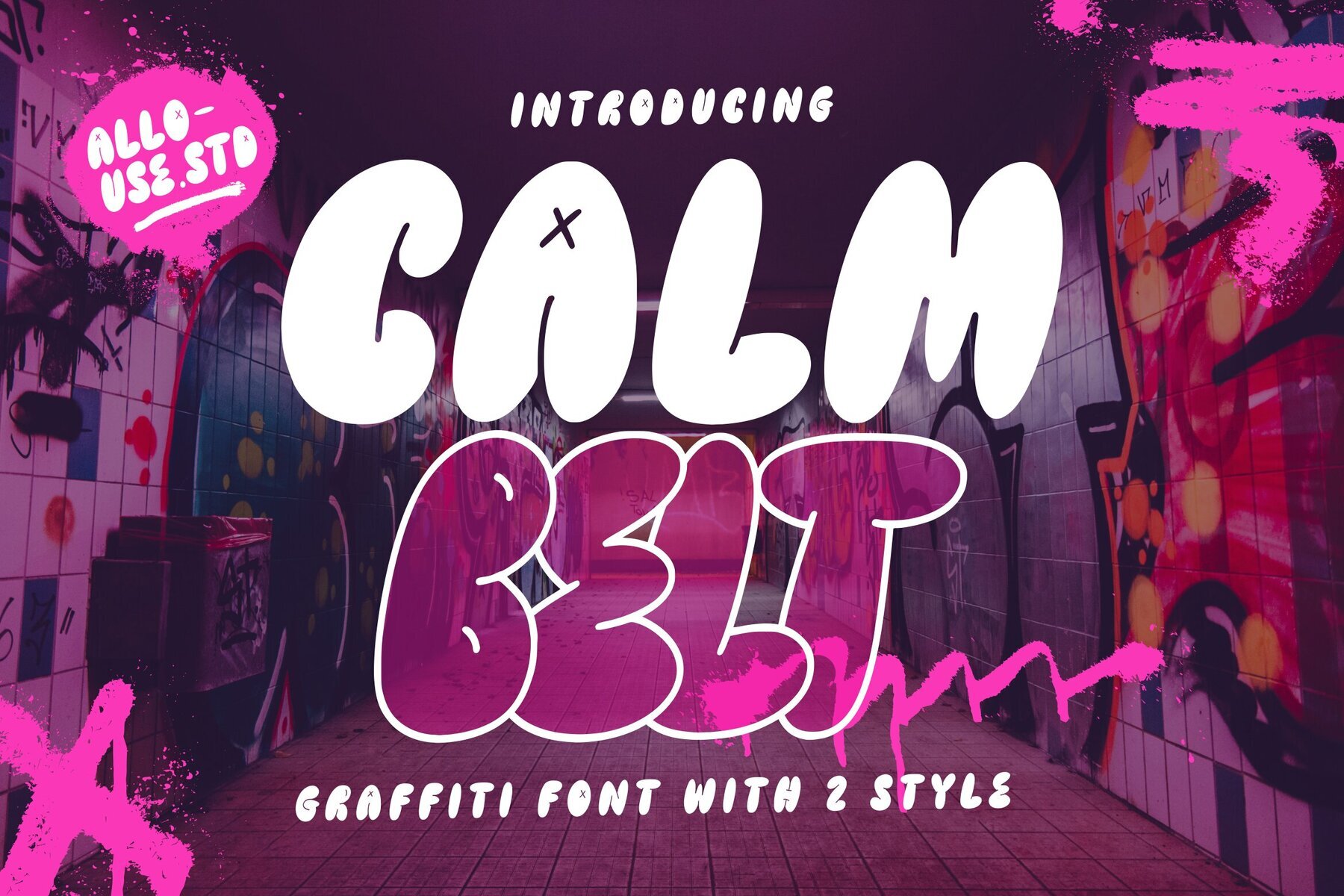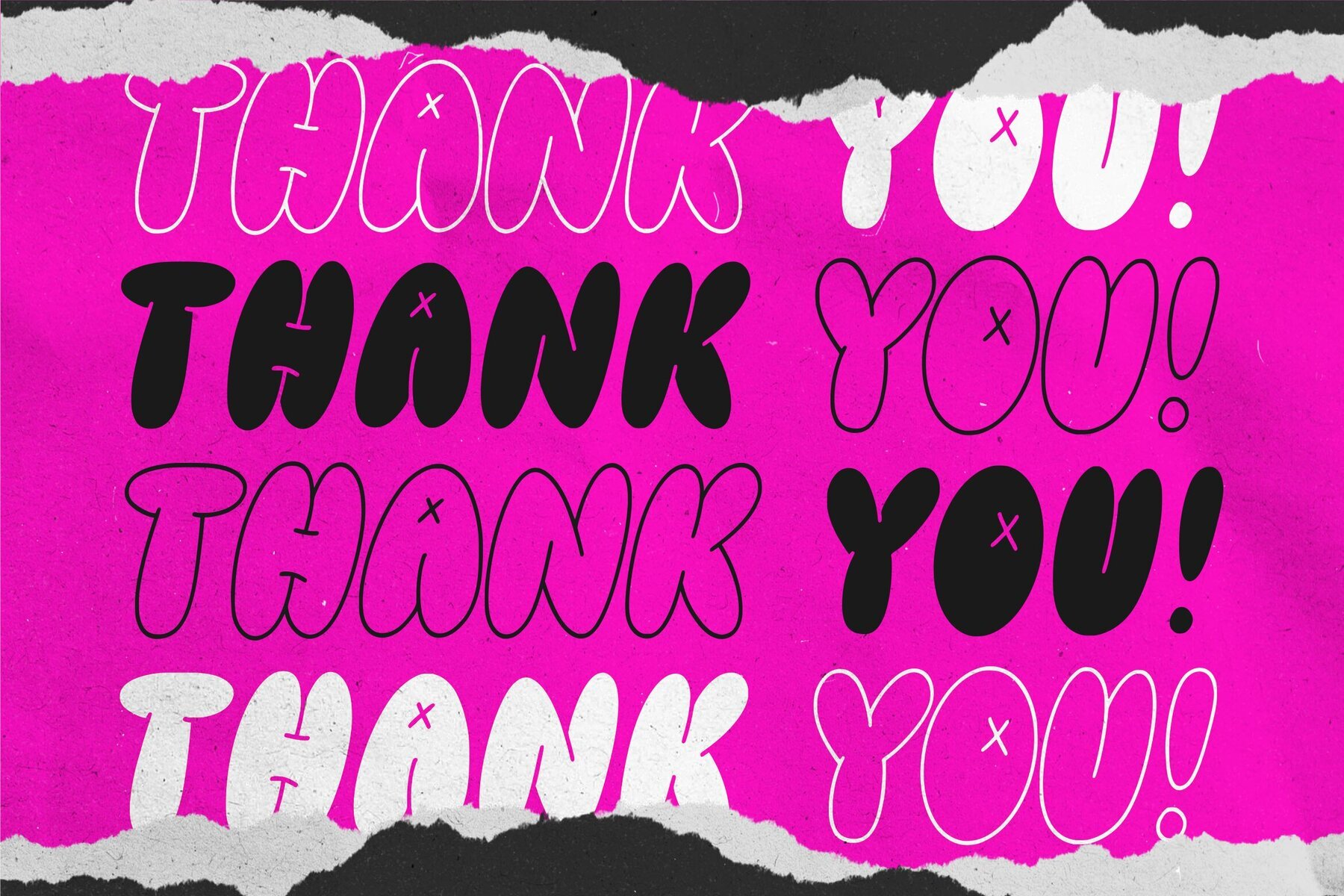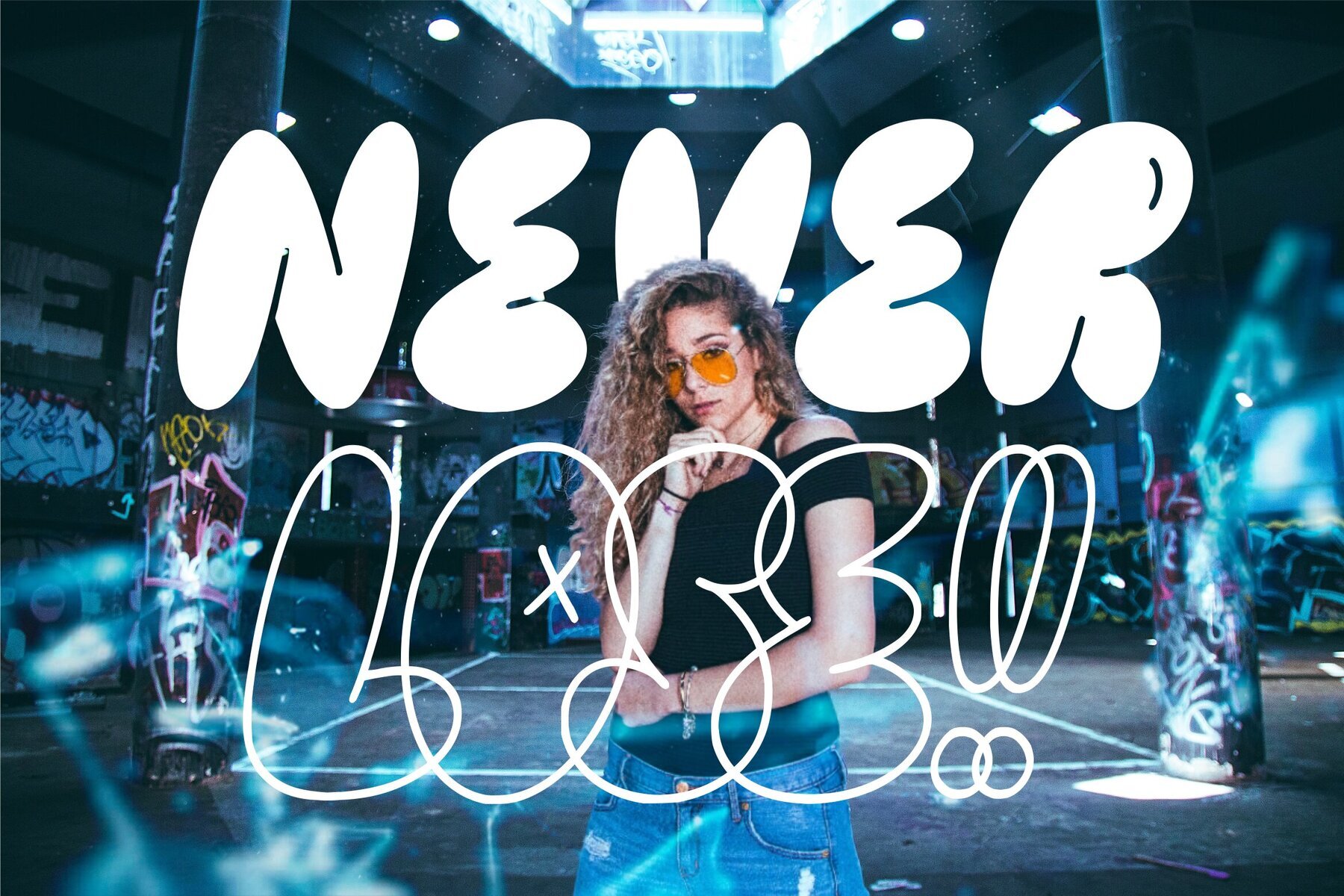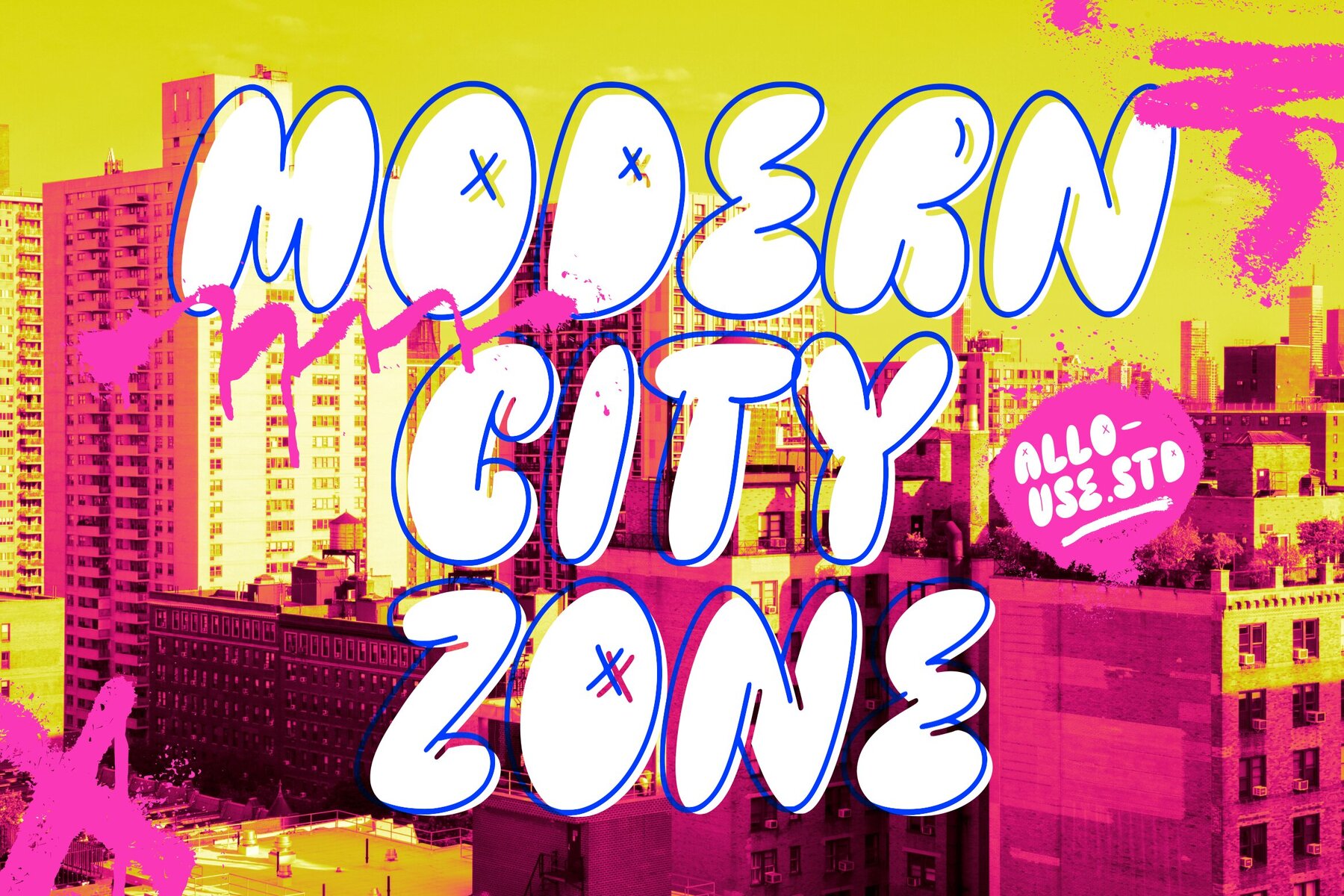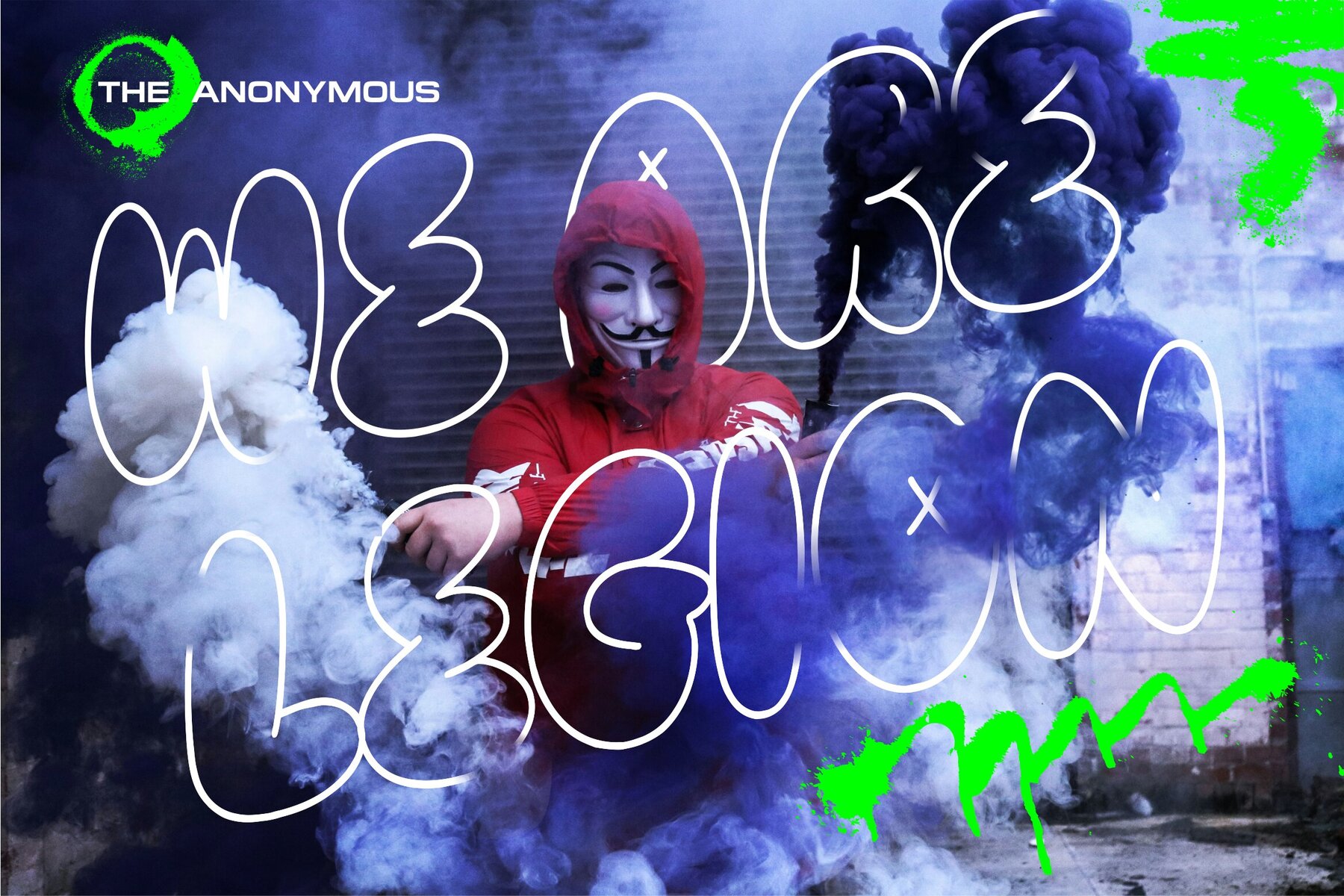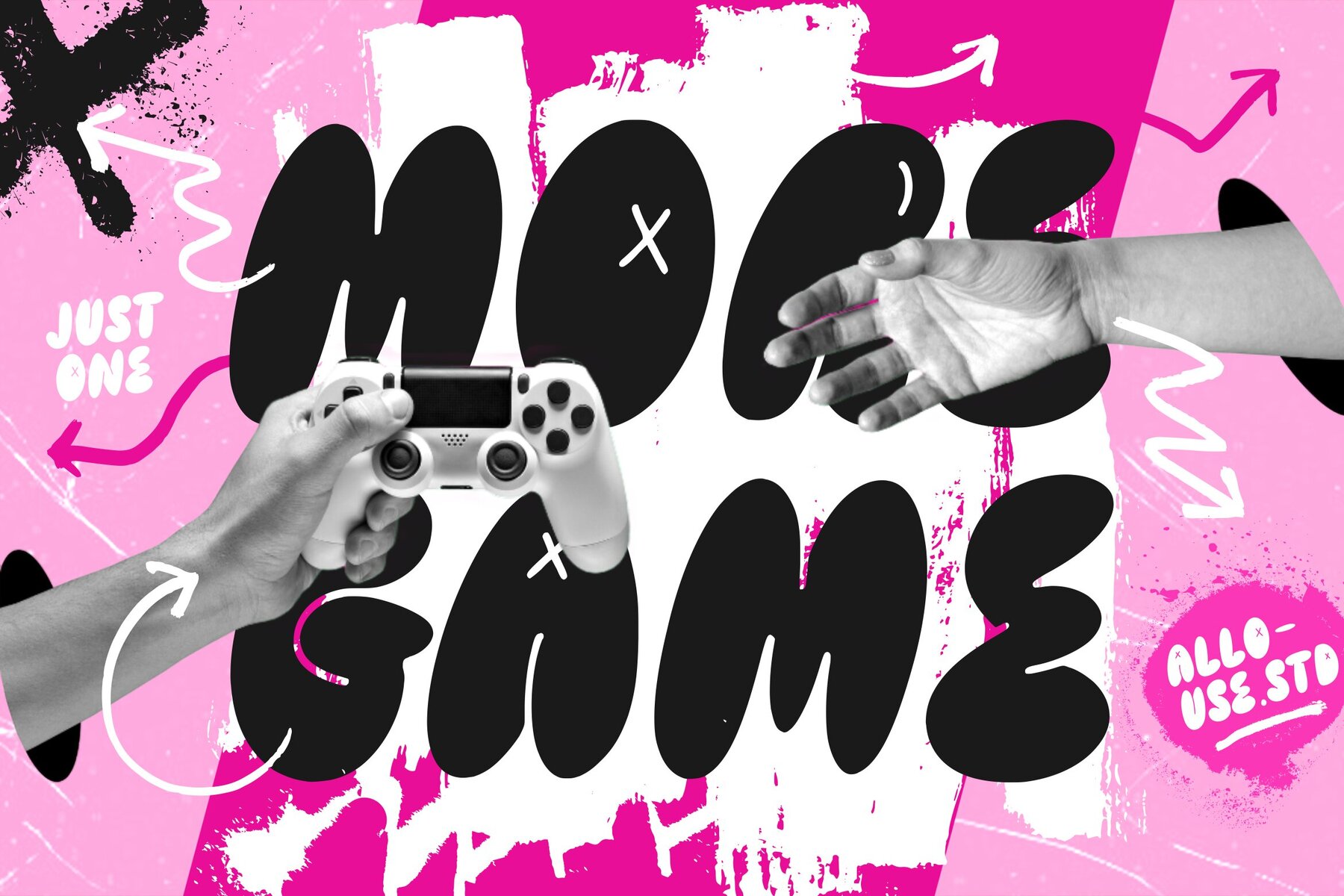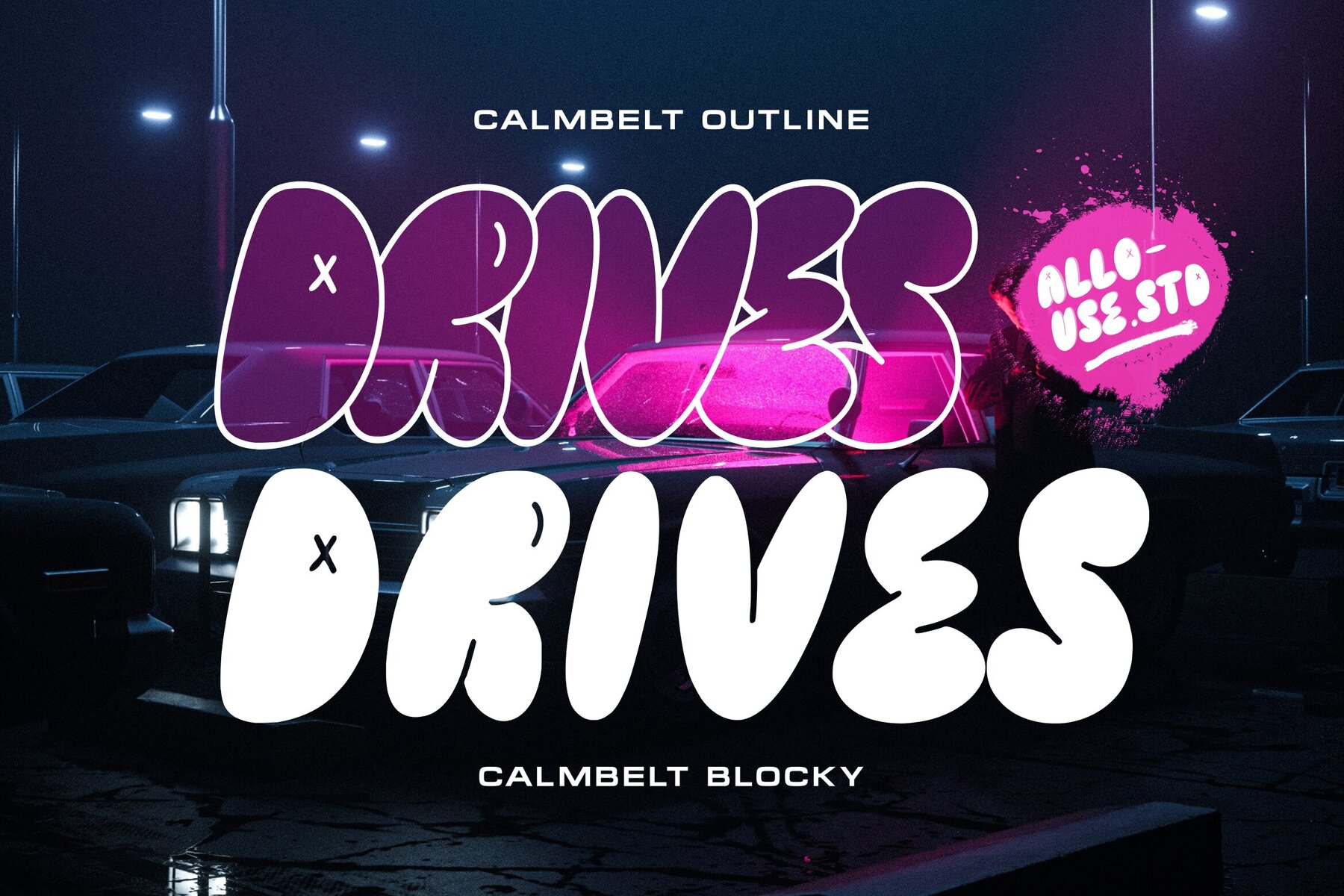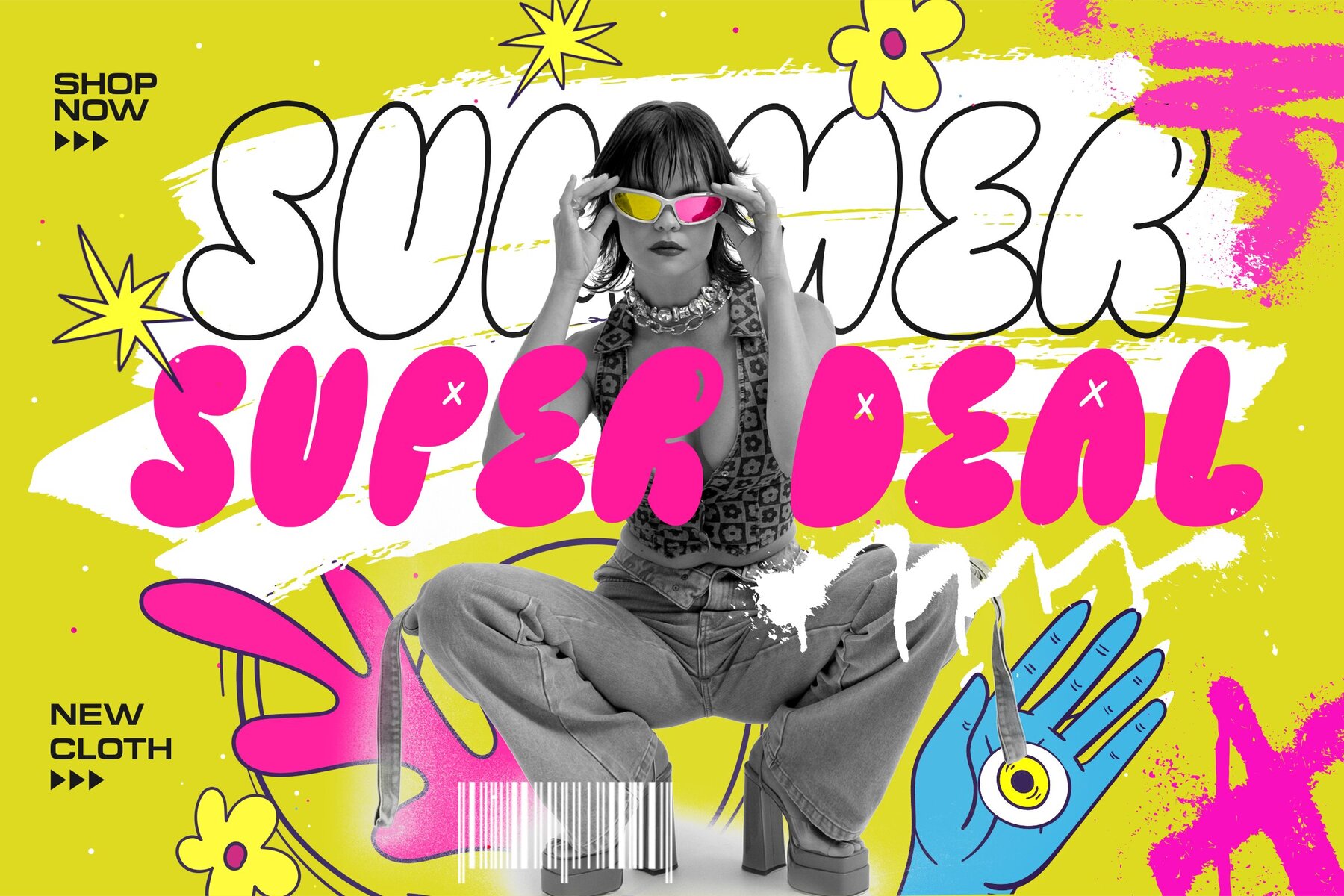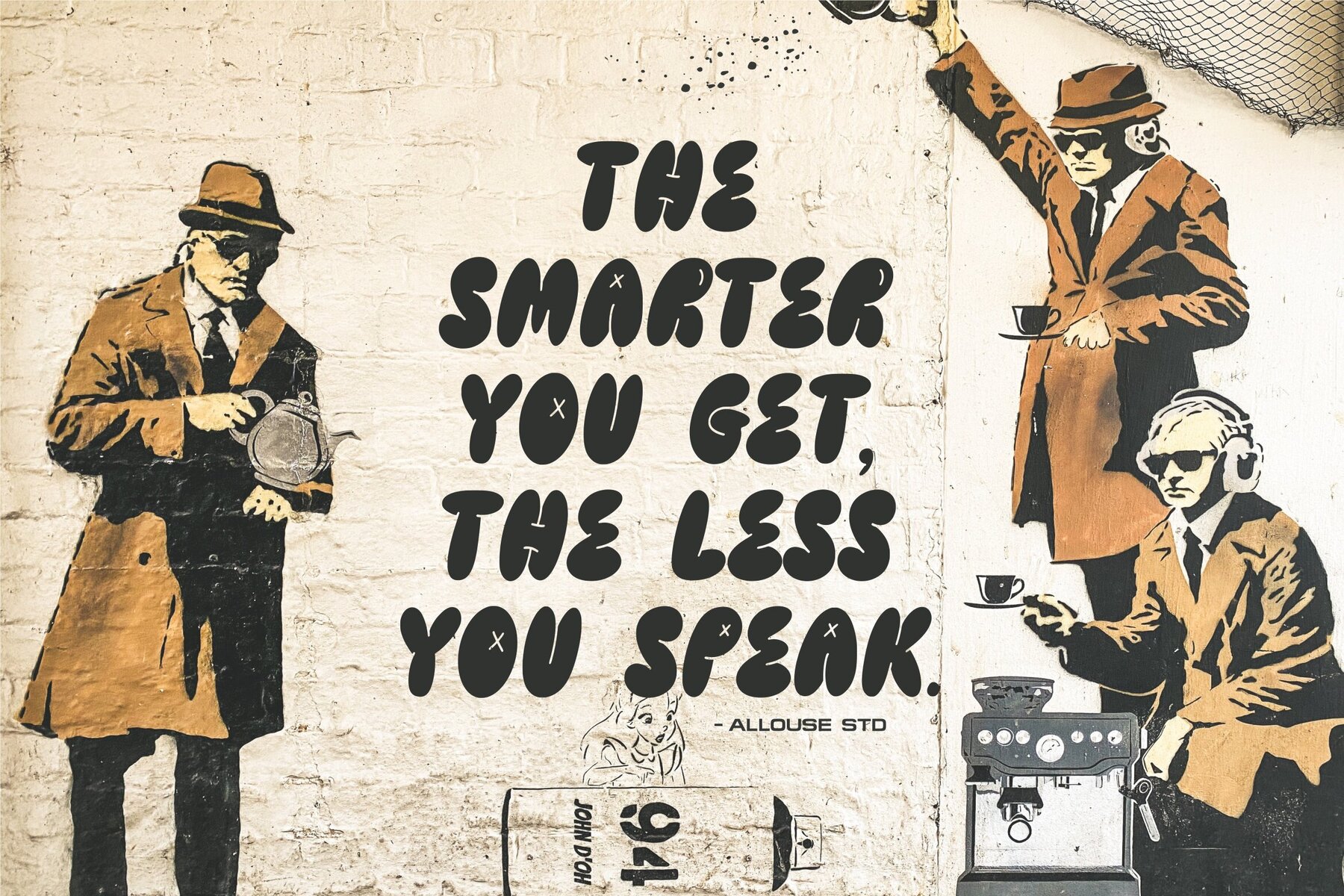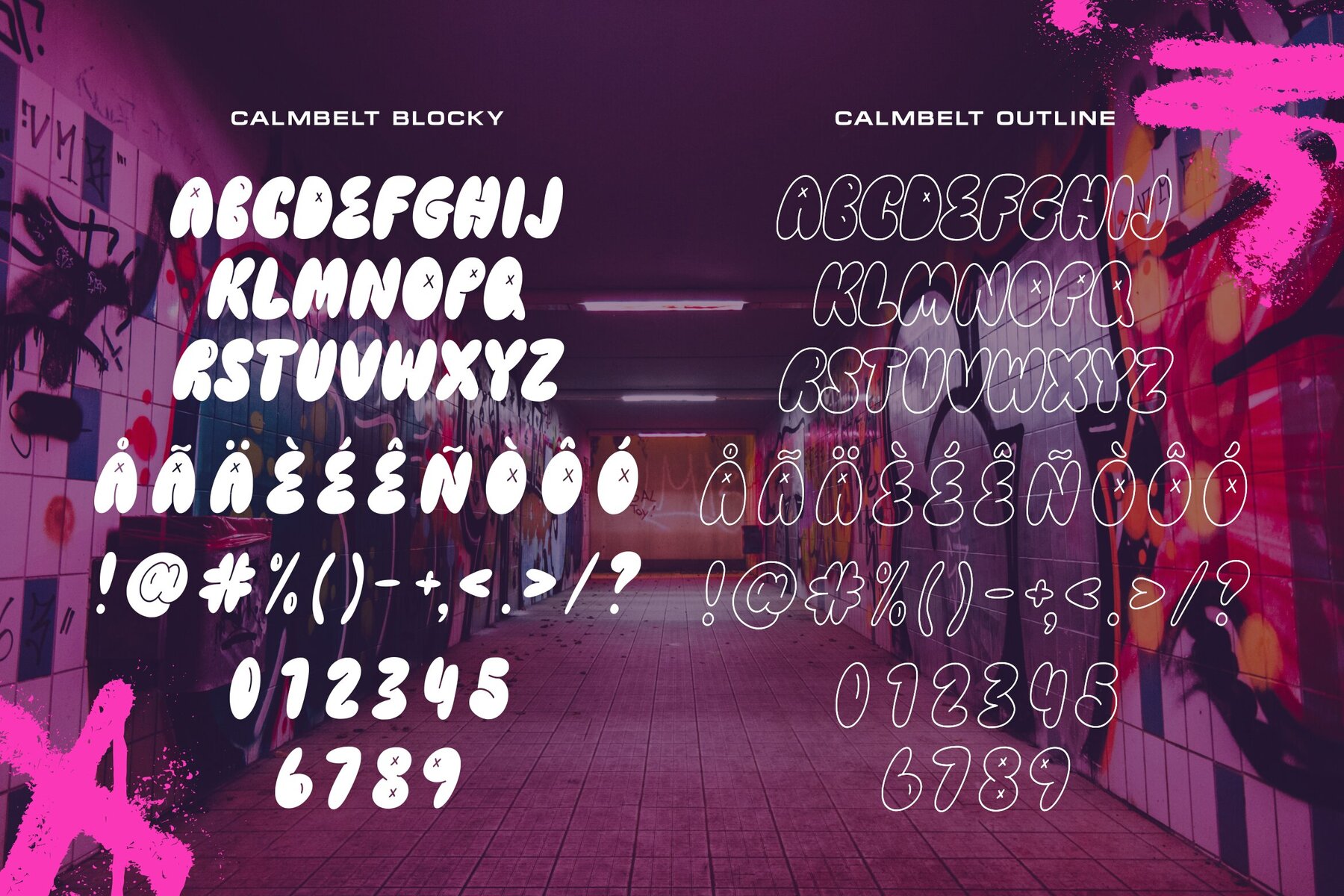
Calmbelt Font
Calmbelt by Allouse.Studio offers a sophisticated touch to any design. It is ideal for a variety of uses, including product packaging, branding projects, magazines, social media, and wedding invitations. Its versatile style ensures it beautifully complements any background.Calmbelt: An Elegant Typeface for Versatile Applications